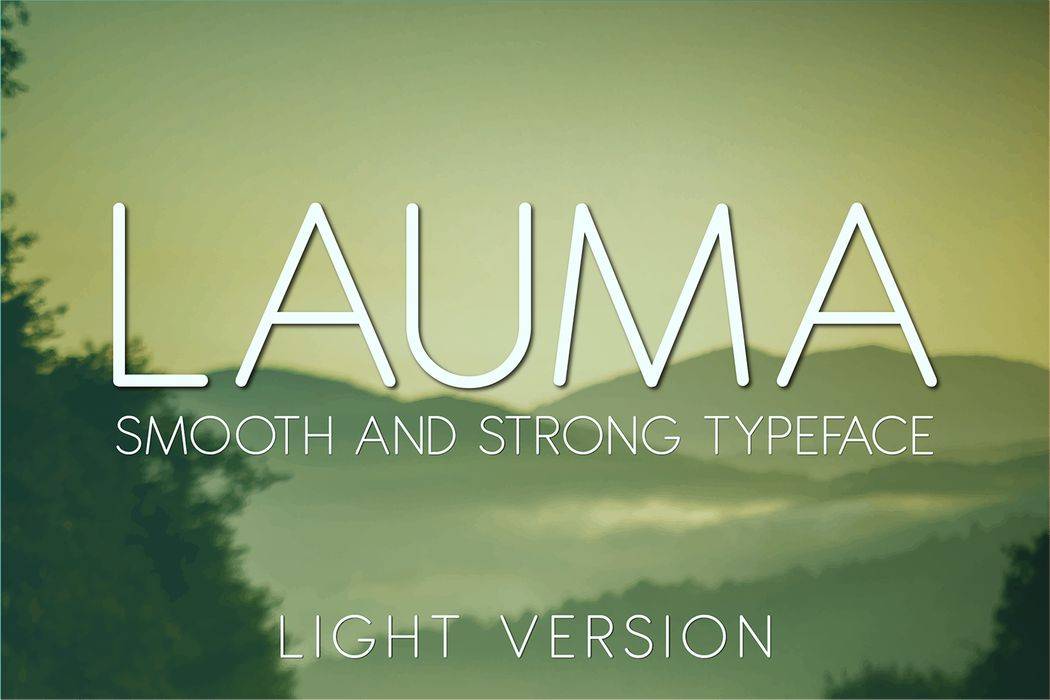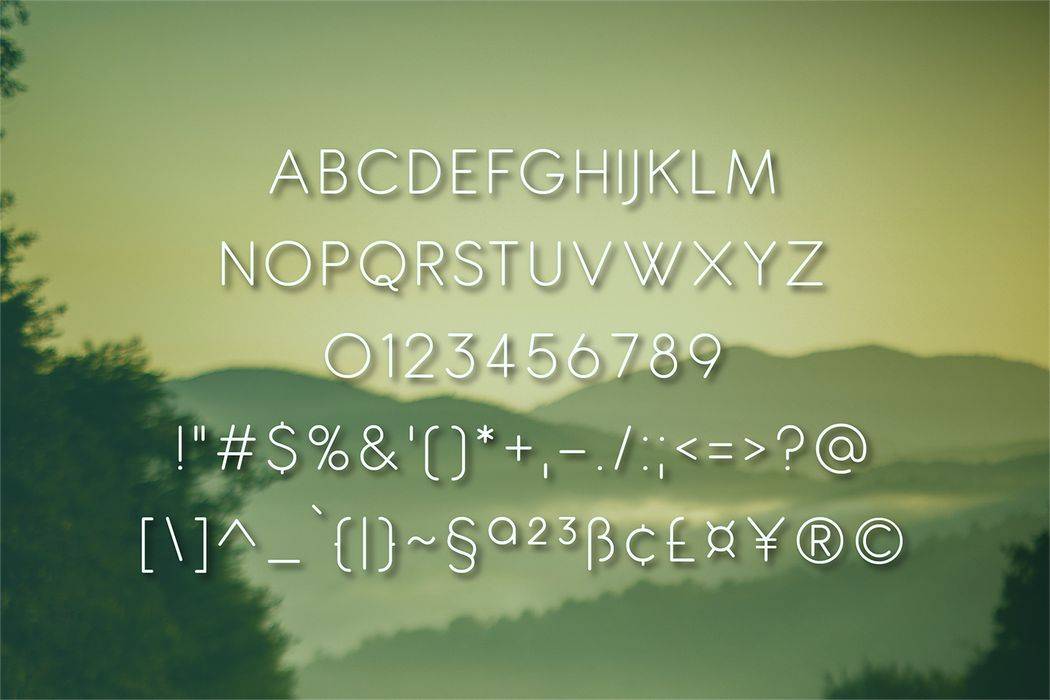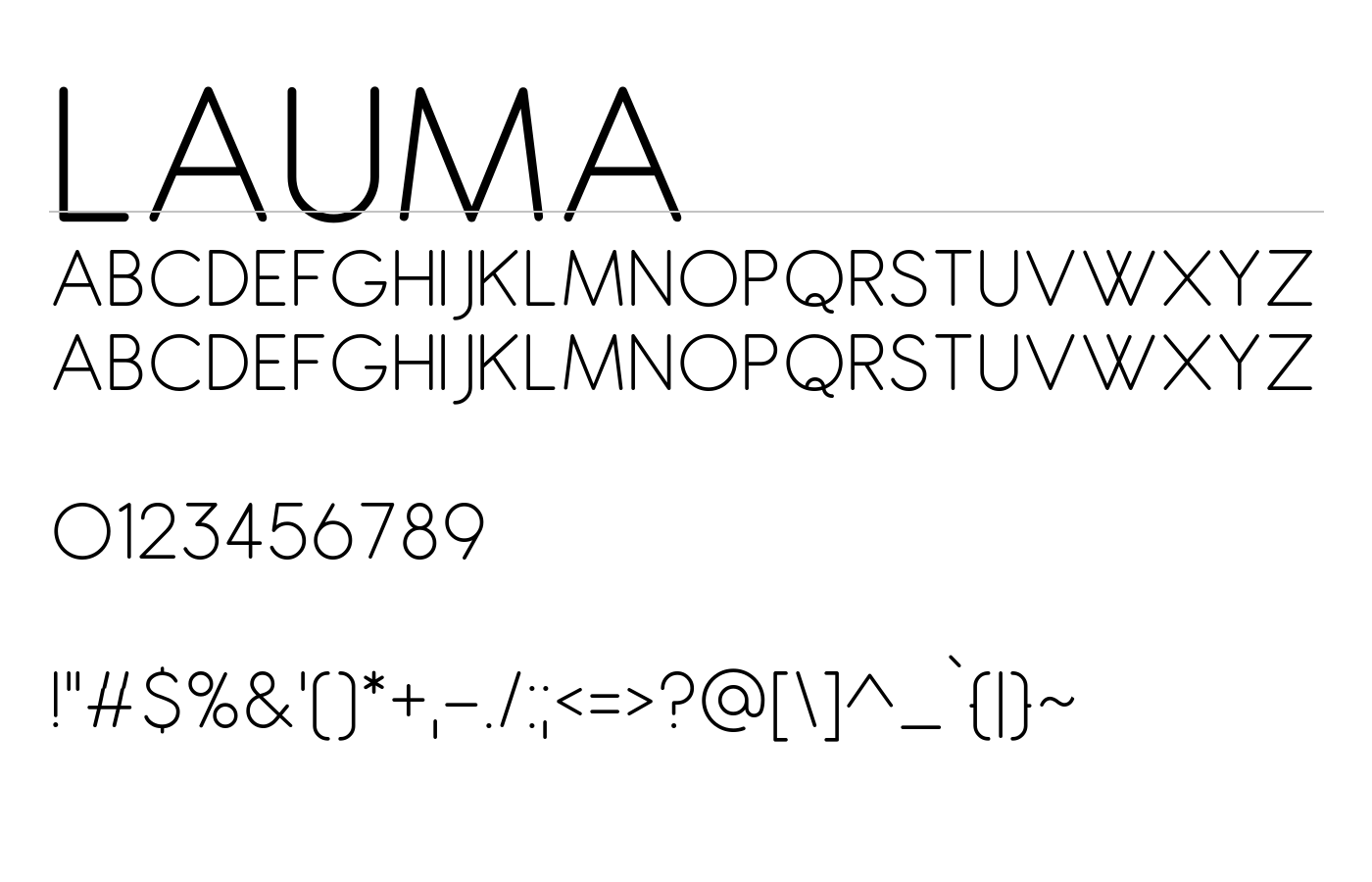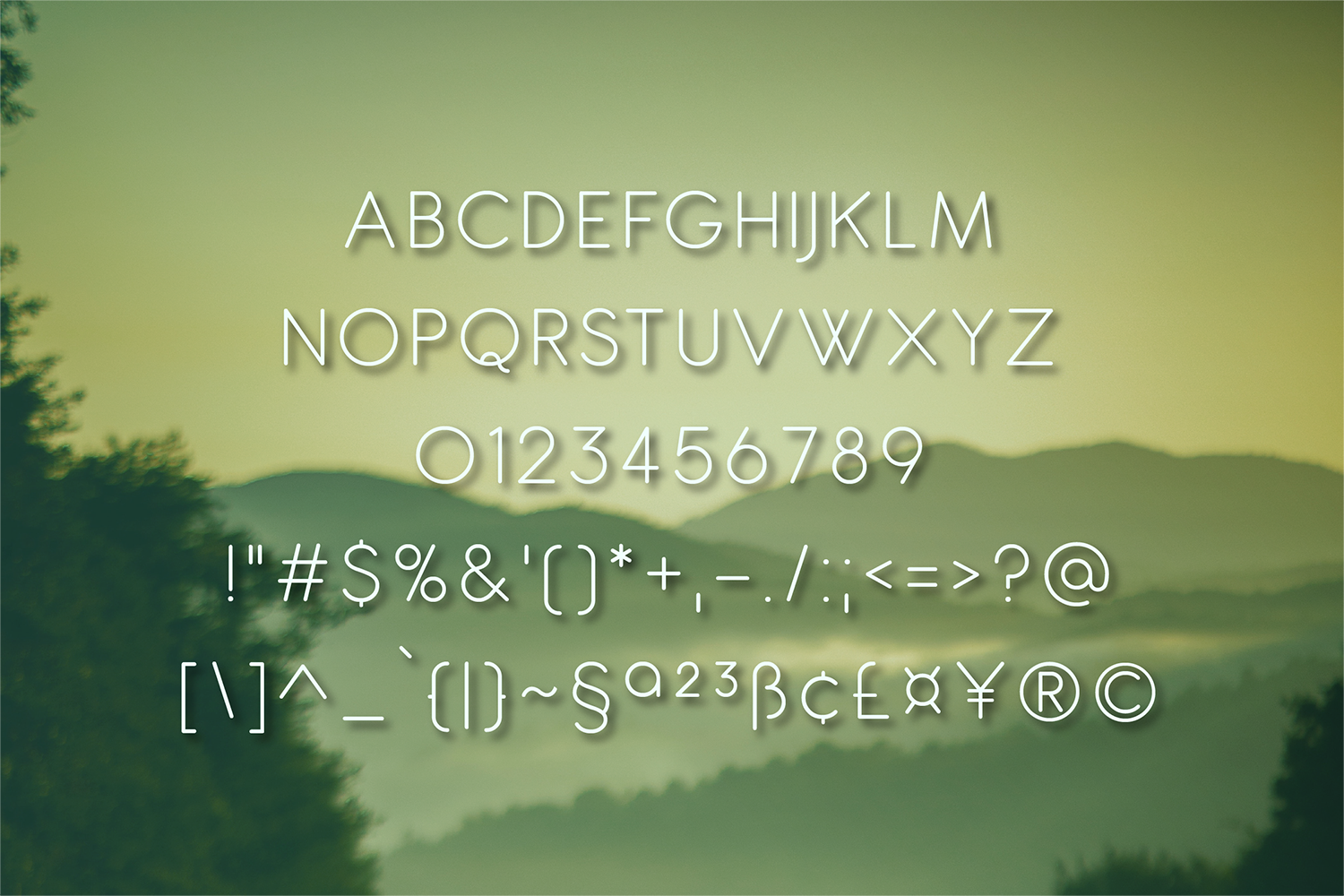
Lauma Light is a sleek and modern sans serif font characterized by its thin, clean lines and elegant geometric shapes. With a light weight and airy spacing, it conveys a refined, minimalist feel that works well for contemporary branding, editorial headlines, and stylish web design. Its simplicity and clarity make it ideal for projects seeking a sophisticated and understated aesthetic.
Lauma Light
About Lauma Light